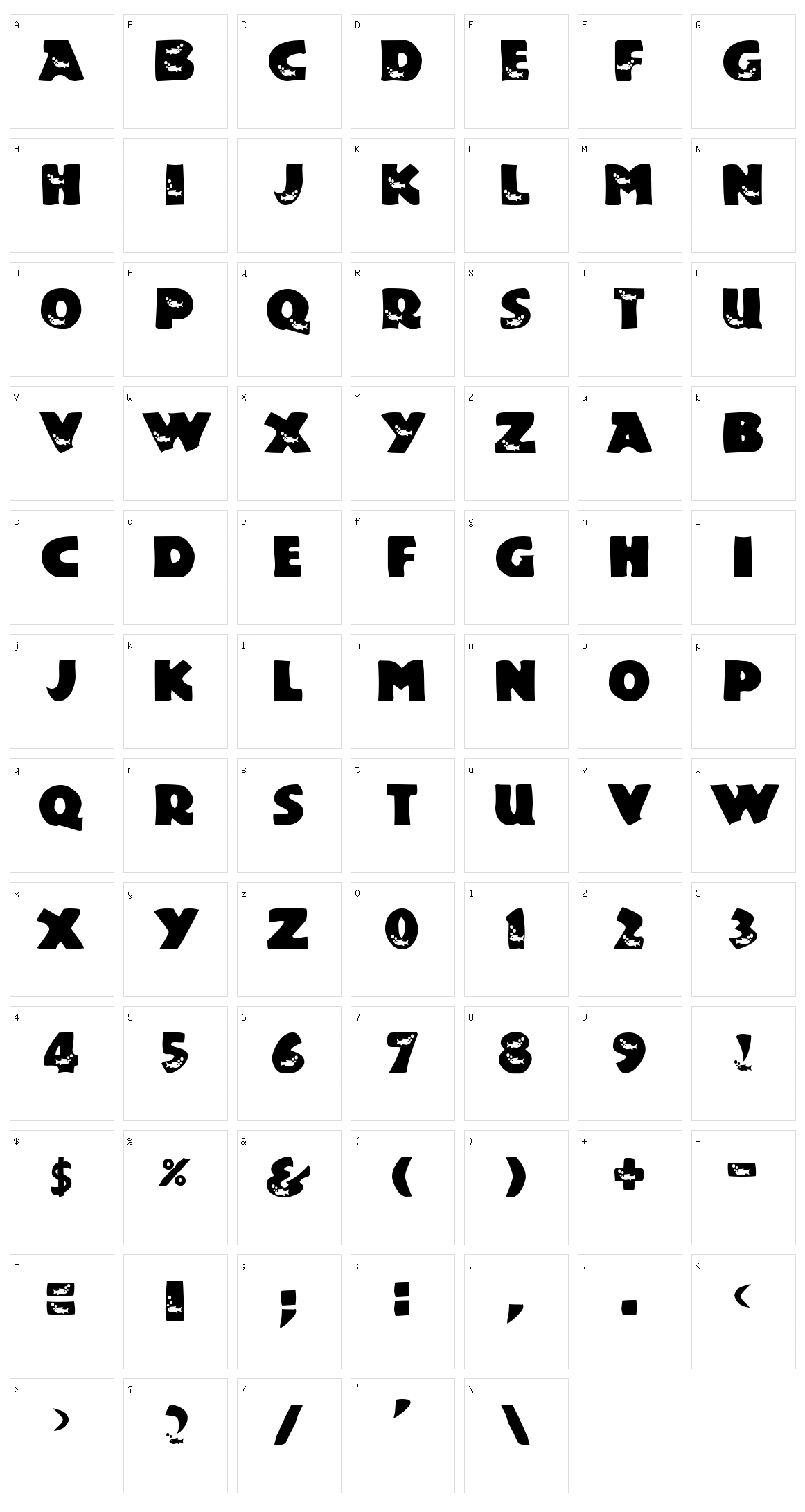
Touch of Nature
This initial version includes capital letters with fish in them, capital letters without them in the lowercase slots, numbers with fish, and a few more.
While walking the stairs at LA Tech University, where I am a student, I saw an ad with letters that I really liked. It was an ad for a new Pet Shop in Town called Touch of Nature. The thing I really liked was that "Nature" was written in rough-looking letters with fish in them. I decided that I would try to recreate this in a font, and Touch of Nature is the result.